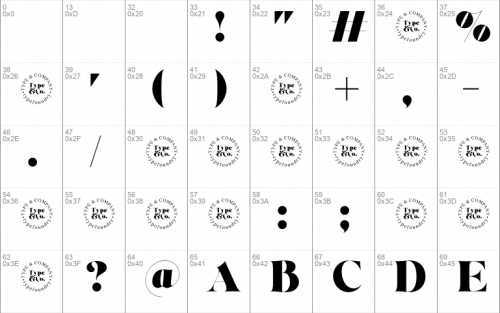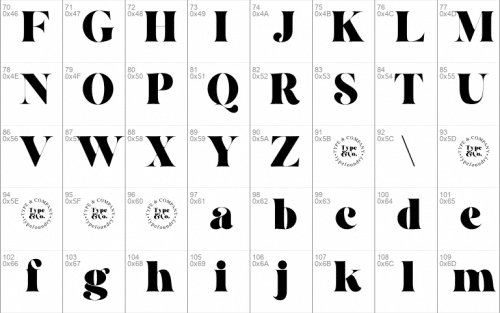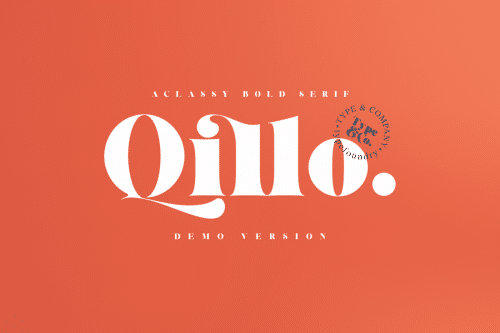
Qillo Serif can fit all your design projects including wedding designs, logos & branding, advertisements, product designs & packaging, poster design, social media posts, and more.
- Designer: Type and Company